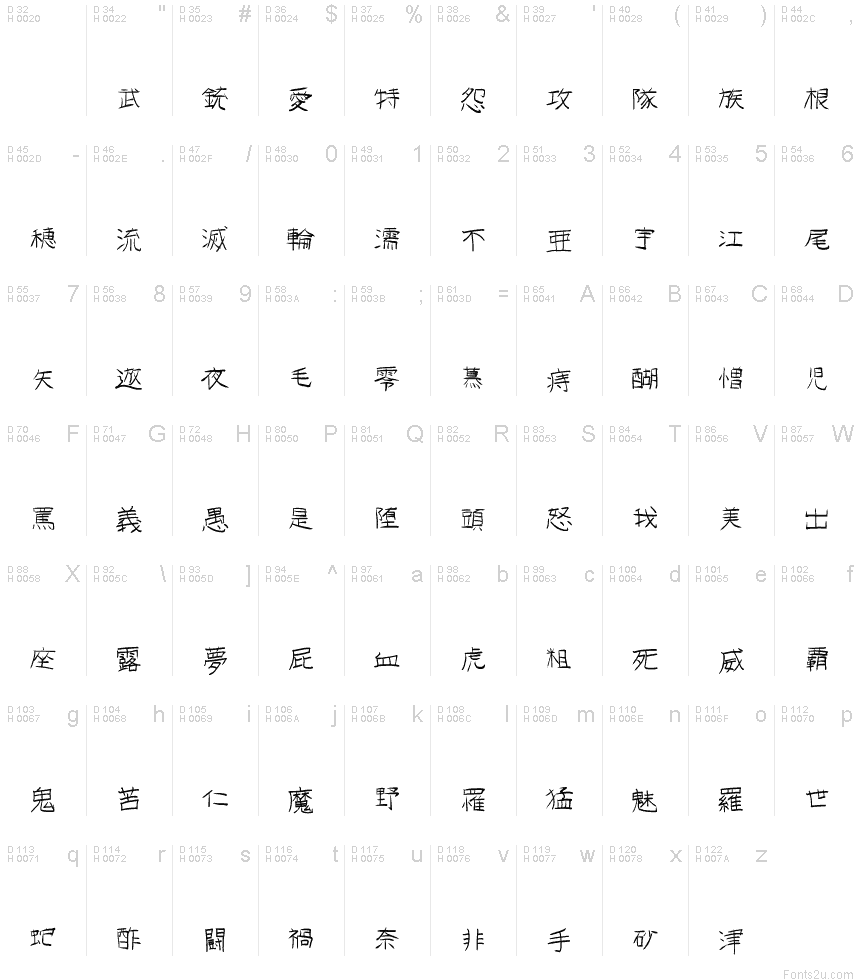
GoJuOn
GoJuOn font by Kyakirun is a free Chinese-style dingbat typeface that channels scratchy ink on rough paper. The strokes feel hand-drawn and restless, like notes scrawled in the margins of a ghost story, with uneven pressure and sharp hooks that add tension and motion. There’s a raw, supernatural vibe here-expressive, slightly chaotic, and full of character, perfect when you want type that feels like it’s been summoned rather than printed.
Using GoJuOn, you can instantly give horror zines, occult-themed posters, thriller book covers, RPG character sheets, Halloween invitations, or eerie social media graphics a haunted, manga-like flavor. This free font shines at larger sizes where its jagged details stay legible and dramatic; pair it with a clean, neutral sans serif for body text so GoJuOn can handle the titles, chapter names, and key callouts.